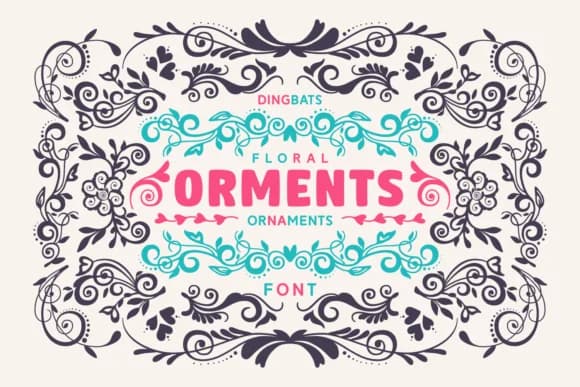
1 / 8About Quaraments Font
Ornamental frames, decorative dividers, and floral elements that carry intentional character and vintage charm define Quaraments, a dingbats collection from GorgezCreations. The letterforms transcend generic ornament by feeling genuinely designed for layered composition. You sense real care in each stroke, particularly through the engraved aesthetic that runs throughout.
The font works best in projects where ornament carries actual weight and meaning. Wedding invitation suites benefit immediately from its romantic frames and flourishes, letting decorative elements set the emotional tone alongside text and photography. Scrapbooking layouts gain immediate sophistication when these dividers and ornaments anchor photographs and storytelling spreads. DIY engraved signage like wood-burned wedding guest books or framed nursery art plays directly to the collection's vintage sensibility. Product designers working on boutique labels for small-batch candles, handmade stationery, or artisanal skincare packaging discover natural pairings that don't feel forced. Craft enthusiasts tackling card designs or decorative cut projects will find the collection operates with restraint: ornamental without overwhelming the composition.
Quaraments speaks to creatives who understand ornament not as decorative filler but as genuine communication. Anyone building work with a hand-crafted, intentional feel will find solid footing here. Grab it on Creative Fabrica and bring that carefully considered sensibility to your next project.
Quaraments Font is a versatile dingbats font that works for both headings and body text. Pair it with a contrasting sans-serif or serif font to add visual interest and a clear distinction between titles and body copy.